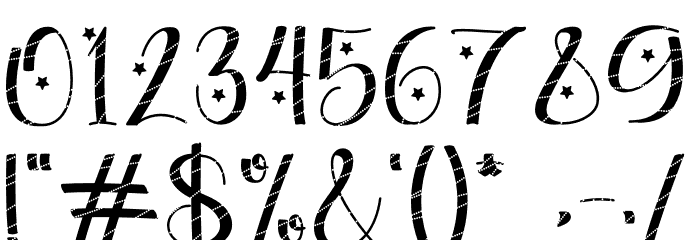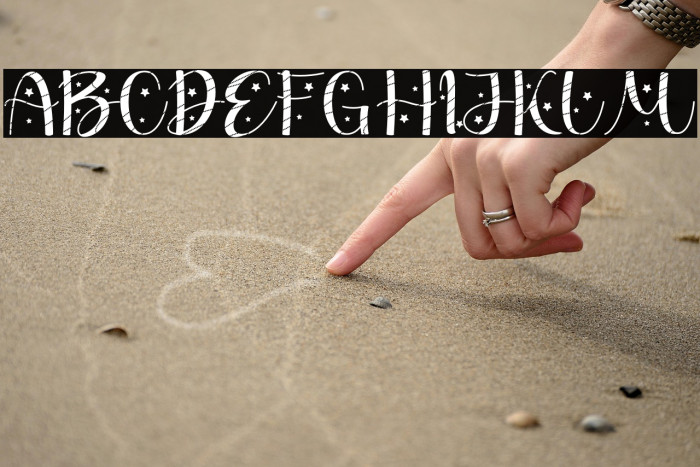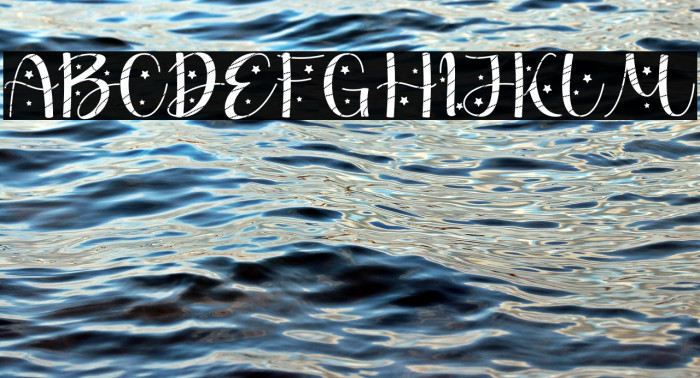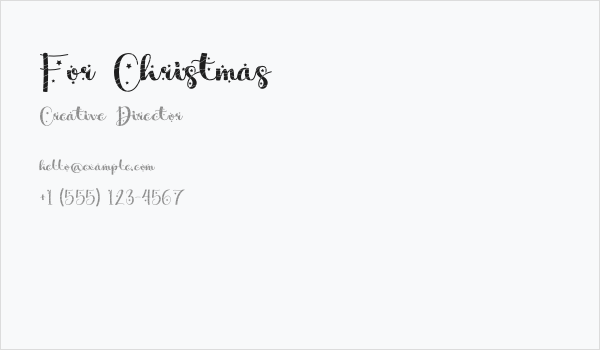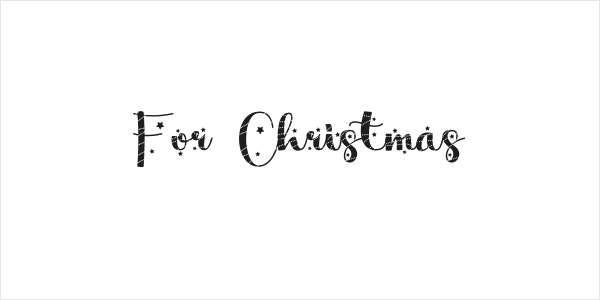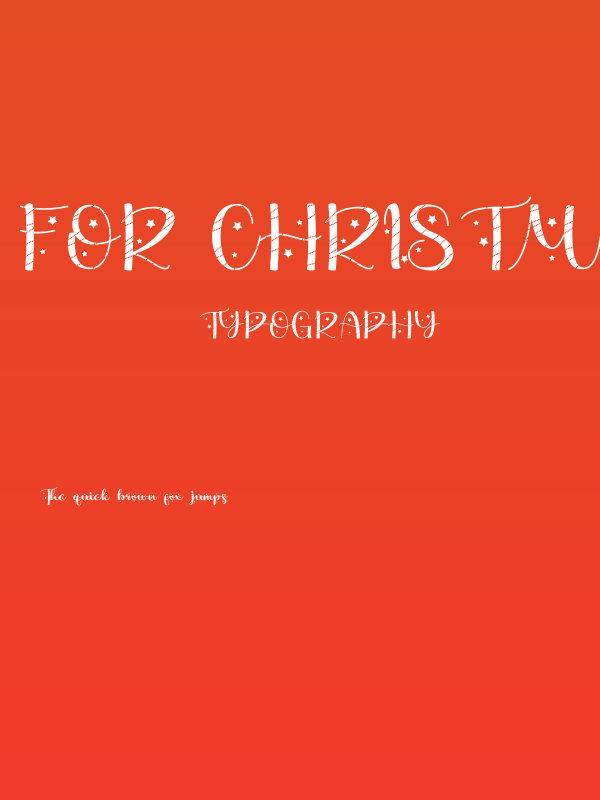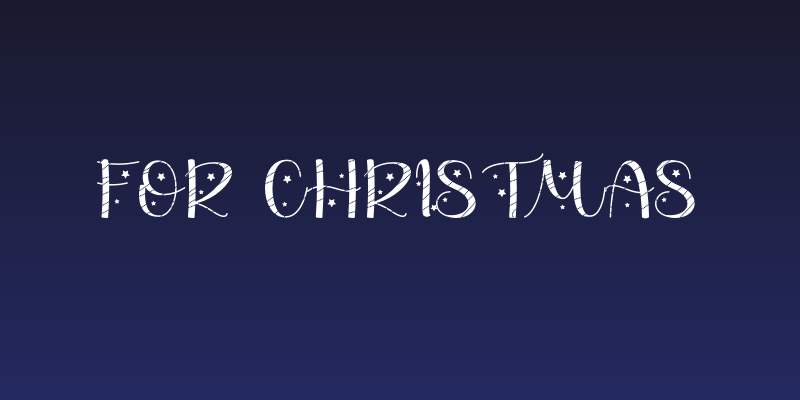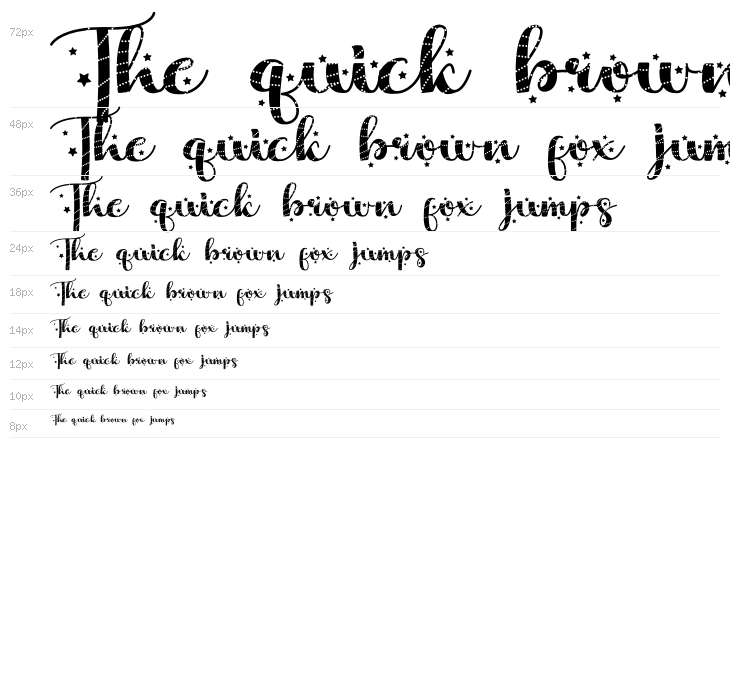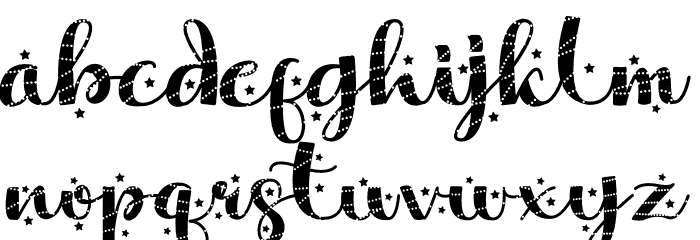
For Christmas Font
For Christmas Description
This festive font features a playful and decorative style, perfect for holiday-themed projects. Each character is adorned with stars and stripes, adding a whimsical touch that evokes the spirit of Christmas. The letters have a hand-drawn, script-like appearance with a bold presence, making them stand out in any design. The uppercase and lowercase letters maintain a consistent style, with smooth curves and a lively flair. The numbers and special characters are equally embellished, ensuring a cohesive look across all text elements. This font is ideal for creating eye-catching headlines, greeting cards, and festive decorations.
| Use Case | Headlines, Logos, Decorative text |
| Proposed Projects | Ideal for holiday cards, festive banners, Christmas-themed posters, and decorative invitations. |